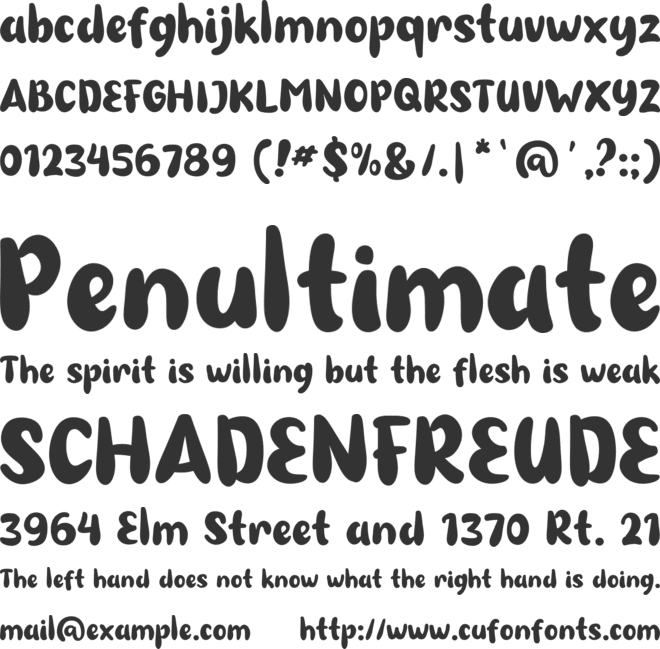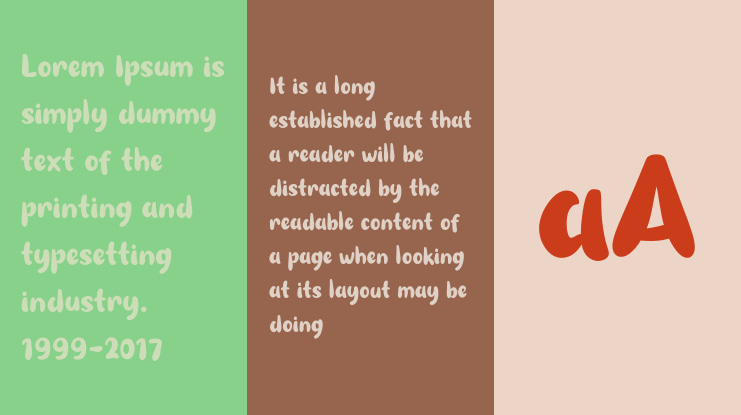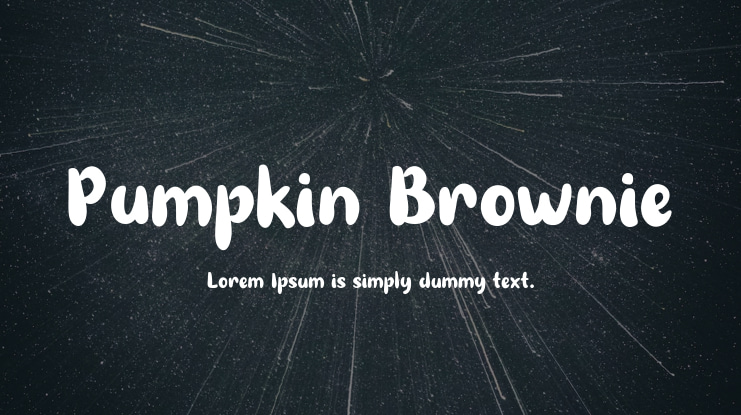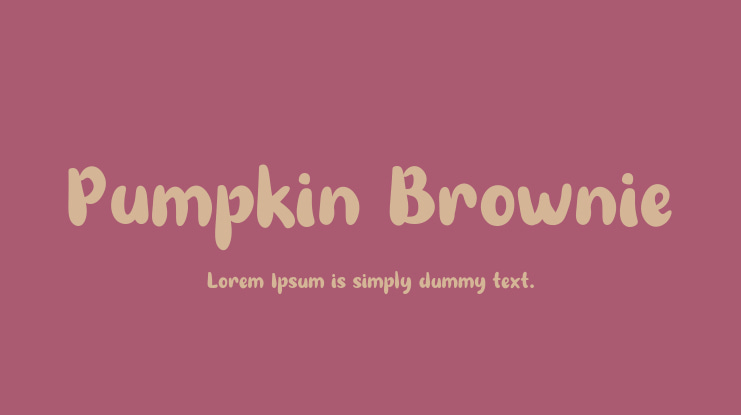
Pumpkin Brownie Font
Pumpkin Brownie is a playful and whimsical font inspired by the cozy vibes of autumn and sweet treats. Its unique blend of rounded edges and hand-drawn imperfections gives it a warm, homemade feel. Perfect for seasonal designs, DIY crafts, or anything that needs a touch of charm, Pumpkin Brownie adds personality and fun to your projects!